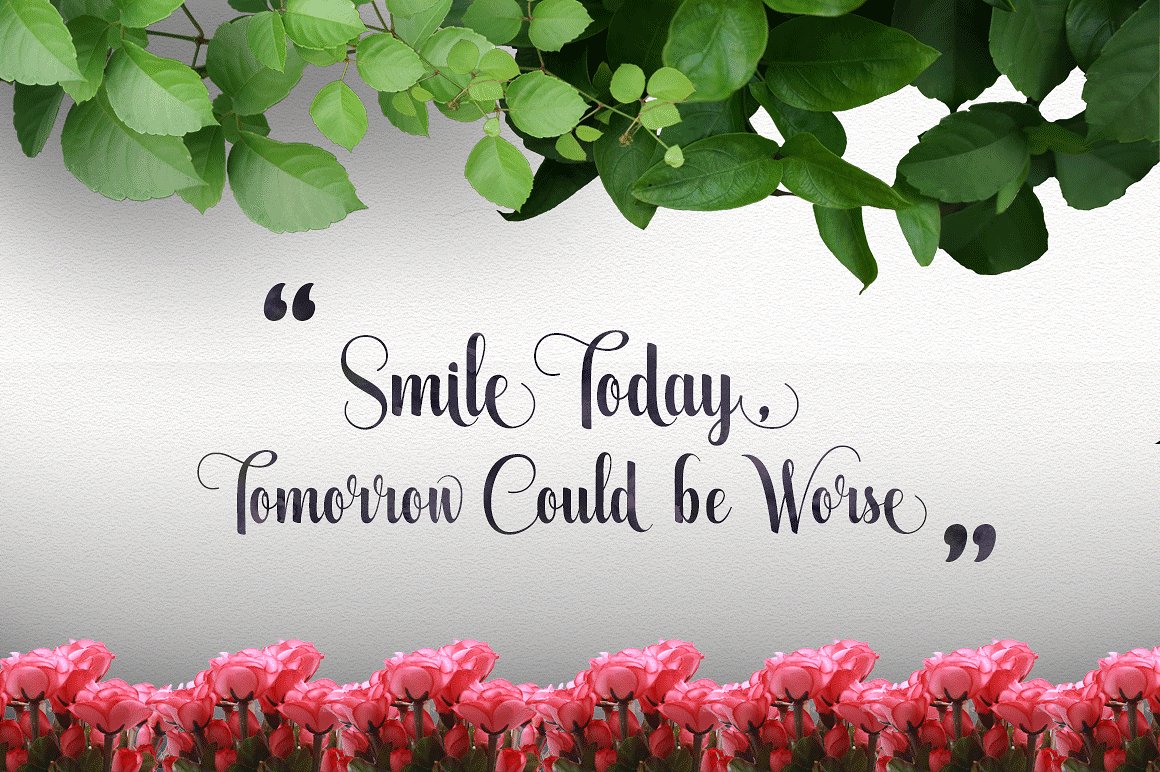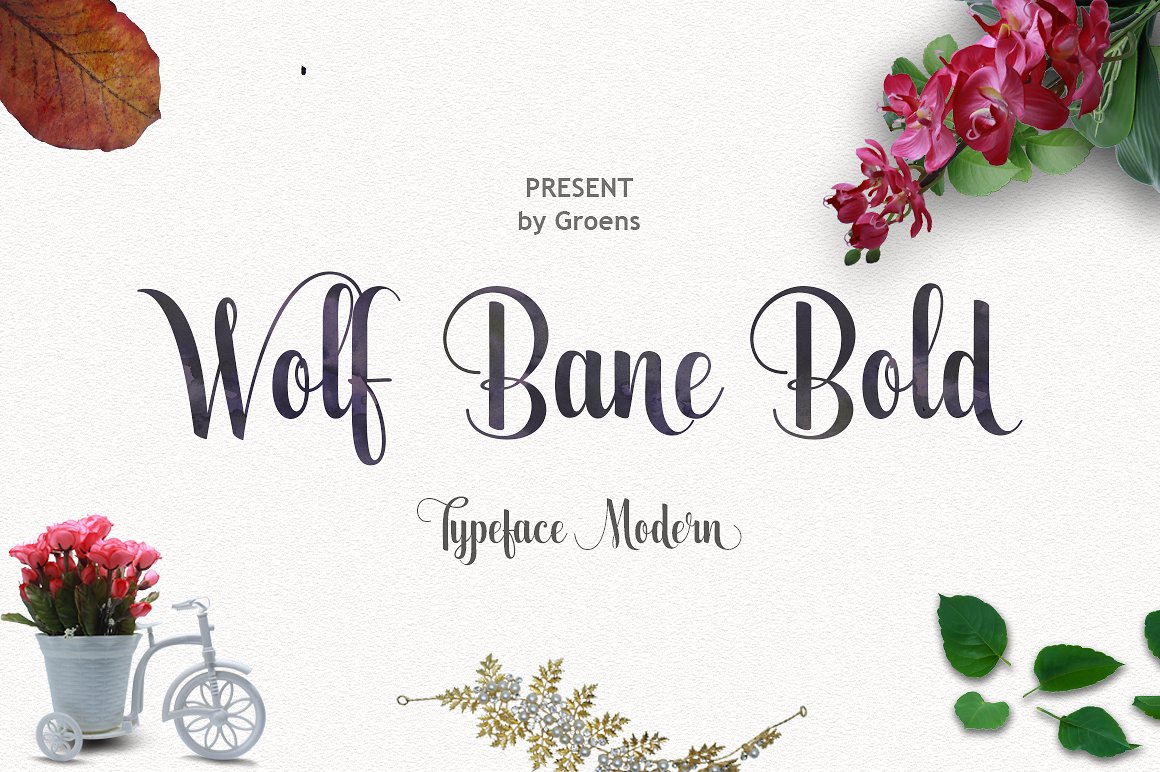
Wolf Bane Bold
Wolfs Bane Bold is a brush script that is beautiful and unique, it is a model of modern calligraphy typefaces, in combination with a calligraphy writing style.